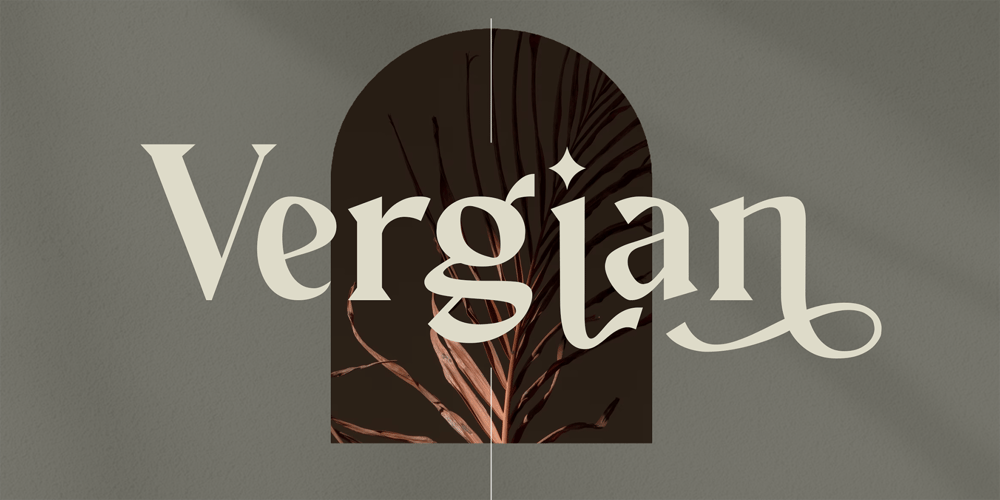
Vergian Font Family was designed by Heri Imanudin and published by Krafted. Vergian contains 1 styles and family package options. Looking for a striking font that’s easy on the eyes? Whether you need a font for your magazine, website, or book, we’ve got a solution.Introducing Vergian – a Modern Serif Font.Clean and easily legible, Vergian is the perfect choice for any text that needs to stand out. Check it out and see the difference that a great font can make.What you’ll get: Multilingual & Ligature Support Full sets of Punctuation and Numerals Compatible with: Adobe Suite Microsoft Office KeyNote Pages Software Requirements: The fonts that you’ll receive in the pack are widely supported by most software. In order to get the full functionality of the selection of standard ligatures (custom created letters) in the script font, any software that can read OpenType fonts will work. We hope you enjoy this font and that it makes your branding sparkle! Feel free to reach out to us if you’d like more information or if you have any concerns.